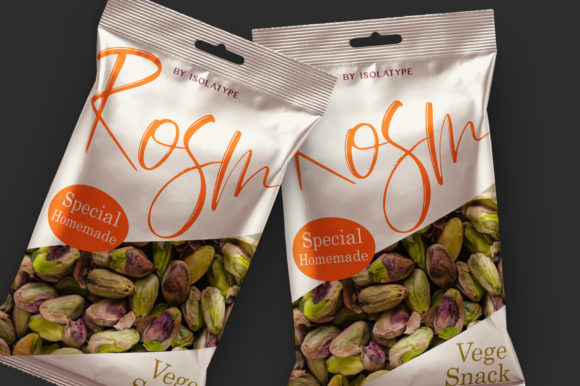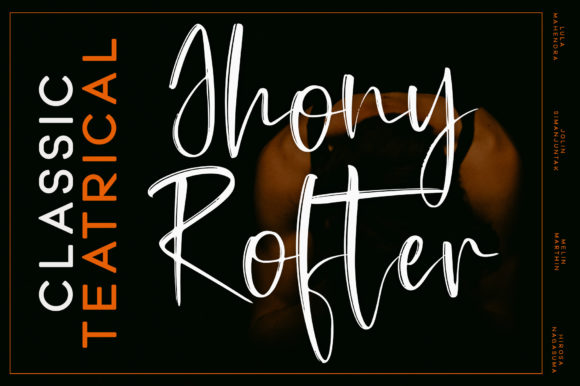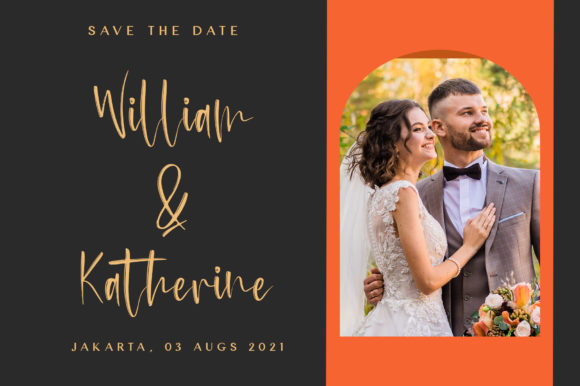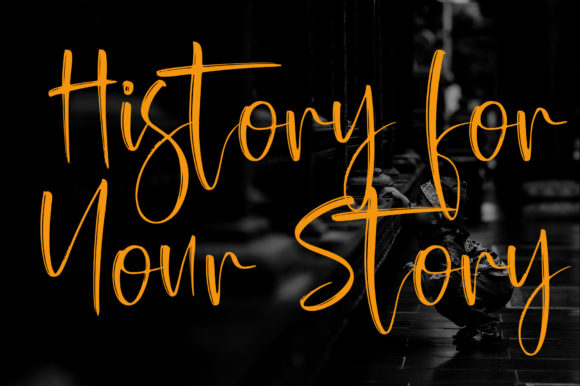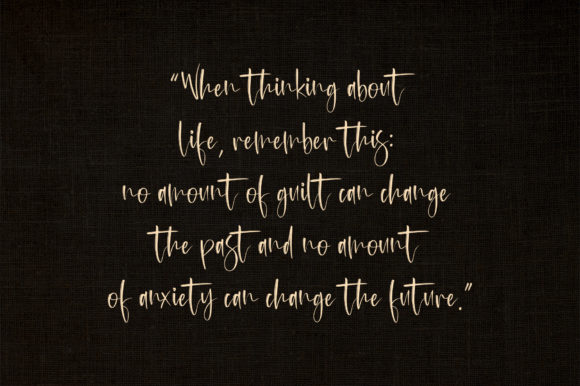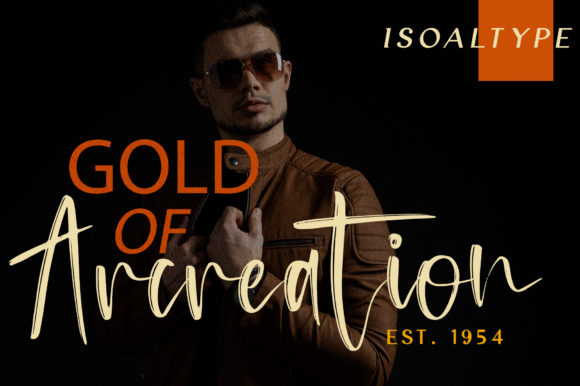
The Perfect Brush Stroke for Your Next Masterpiece
Have you ever stared at a blank canvas, scribbled out ideas in your journal, or crafted a digital design, only to feel like something’s missing? The perfect font can make all the difference in elevating your work from ordinary to extraordinary. That’s where the Alamsyah Font comes in – a stylish, thin lettered, and asymmetrical handwritten font that’s sure to capture your audience’s attention.
This versatile font is designed to be the perfect accompaniment to any creative project, whether it’s a blog post, social media graphic, or even a wedding invitation. Its unique characteristics make it an incredible asset to any designer’s library, adding a touch of personality to each and every creation.
Alamsyah Font Key Features
- Font Family: Alamsyah Font is a custom-designed font family, making it a unique and exclusive option for designers and publishers.
- Unique Characteristics: Alamsyah Font features a distinctive, elegant script with a modern twist, making it perfect for luxury branding, invitations, and high-end publications.
Alamsyah Font Review
I recently had the chance to work with the Alamsyah font, and I have to say it’s a unique addition to any design project. ✨ The first thing that stood out to me was its distinctive calligraphic flair, making it perfect for creative and artistic projects. ✨ The font’s organic feel also lends itself well to hand-written or vintage-inspired designs.
However, I did notice a few limitations that might impact its use in certain contexts. ⚠️ The font’s letter spacing can be inconsistent, which may cause readability issues in certain situations. ⚠️ Additionally, the font’s x-height is relatively small, which can make it difficult to read at smaller font sizes.
Here are some specific features I liked and disliked:
- ✨ Distinctive calligraphic flair
- ✨ Organic, hand-written feel
- ⚠️ Inconsistent letter spacing
- ⚠️ Small x-height
Overall, I think the Alamsyah font is a great choice for designers looking to add some creative flair to their projects. While it may have some limitations, its unique feel and aesthetic make it a valuable addition to any design library.
Common Use Cases for Alamsyah Font
1. Logos and branding materials.
2. Brochures and flyers.
3. Social
Alternatives to Alamsyah Font
Alamsyah Font is a unique, handwritten font with a modern touch. However, designers may want to explore other alternatives for specific projects. Here are a few options:
Carolyna Pro is a modern, elegant script font suitable for high-end branding and invitations. It features flowing connections and refined lines, making it a great choice for luxury designs. Compared to Alamsyah Font, Carolyna Pro has a more refined and sophisticated feel, making it ideal for projects that require a touch of sophistication.
Great Vibes is a modern calligraphy font with a relaxed, friendly feel. It’s perfect for creative projects, such as posters, flyers, and social media graphics. Unlike Alamsyah Font, Great Vibes has a more casual and approachable tone, making it suitable for designs that require a laid-back vibe.